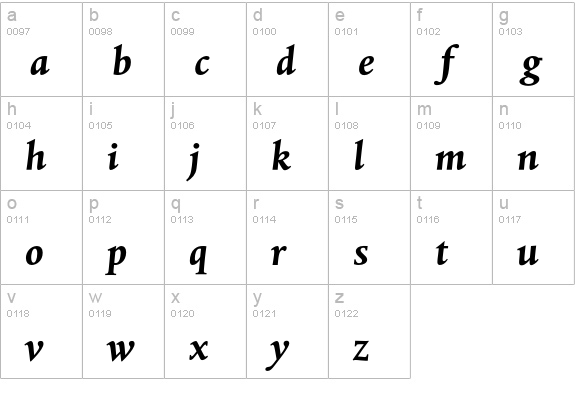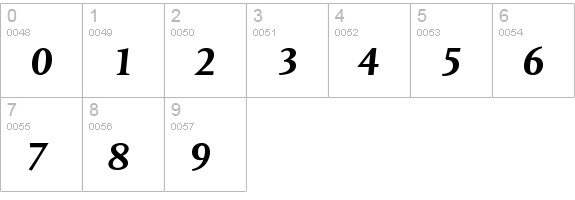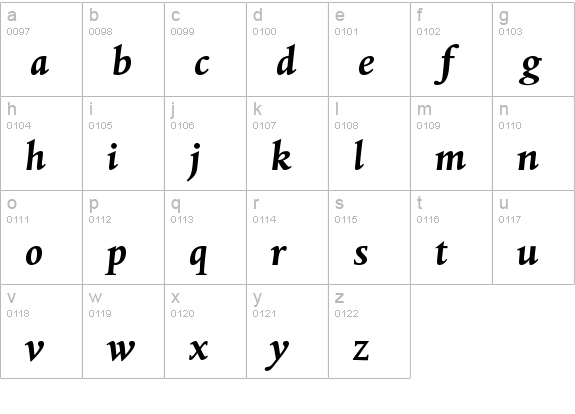
DTLAlbertinaT Bold Italic is a strong, high-contrast, italic variant in the DTLAlbertinaT typeface family \xE2\x80\x94 well suited to headlines, attention-grabbing titles, and strong calls-to-action.
The DTLAlbertinaT Bold Italic font exudes a sense of modern sophistication with its striking bold weight and elegant italic slant. This stylish typeface is perfect for adding a touch of flair and finesse to any design project. Its unique blend of boldness and grace makes it an ideal choice for headlines, logos, posters, and more. And the best part? DTLAlbertinaT Bold Italic font is available for free download at FontsMarket.com. So, whether you're a designer looking to elevate your creations or a business seeking a distinctive branding solution, this font is a must-have addition to your toolkit. Don't miss out on the opportunity to enhance your projects with this exquisite typeface, now easily accessible and completely free of charge.